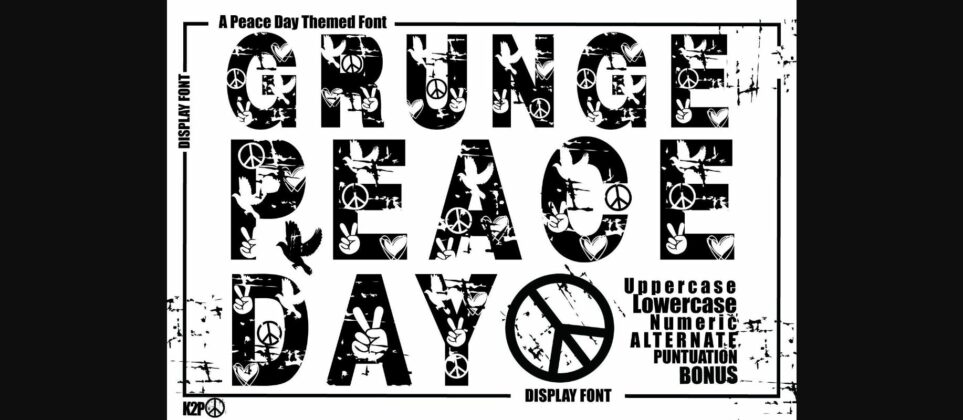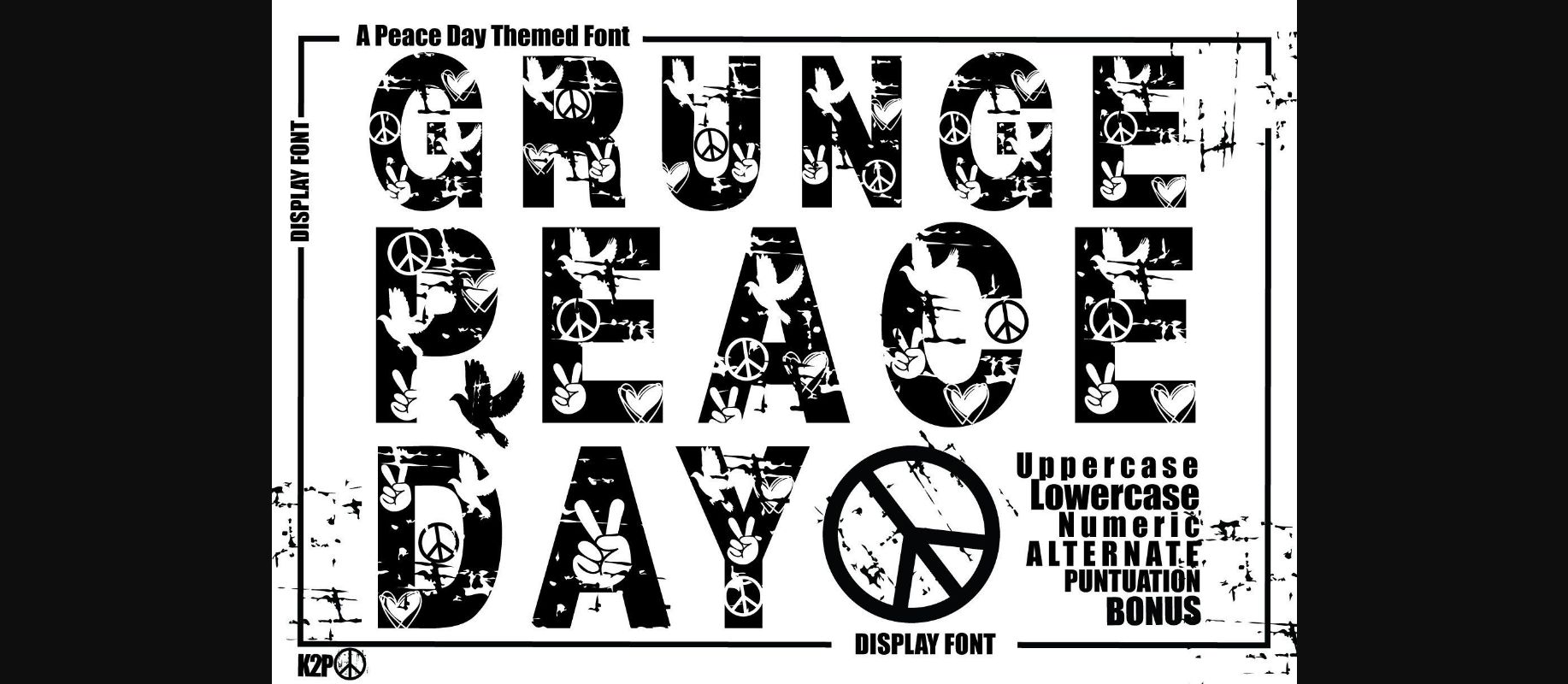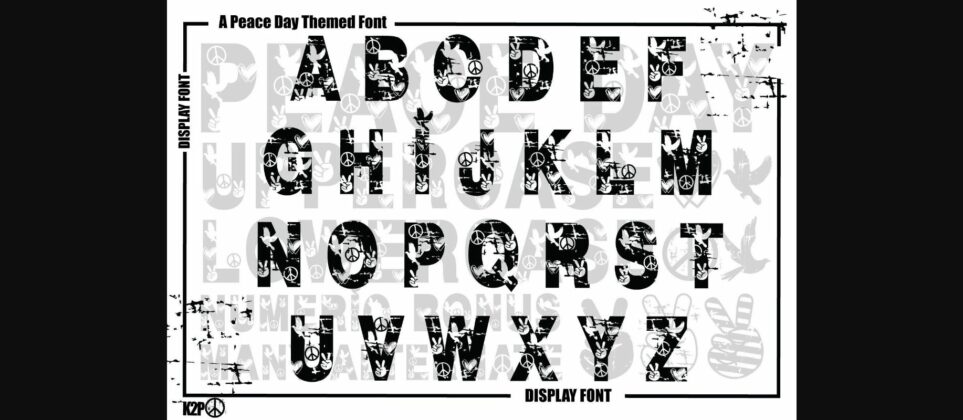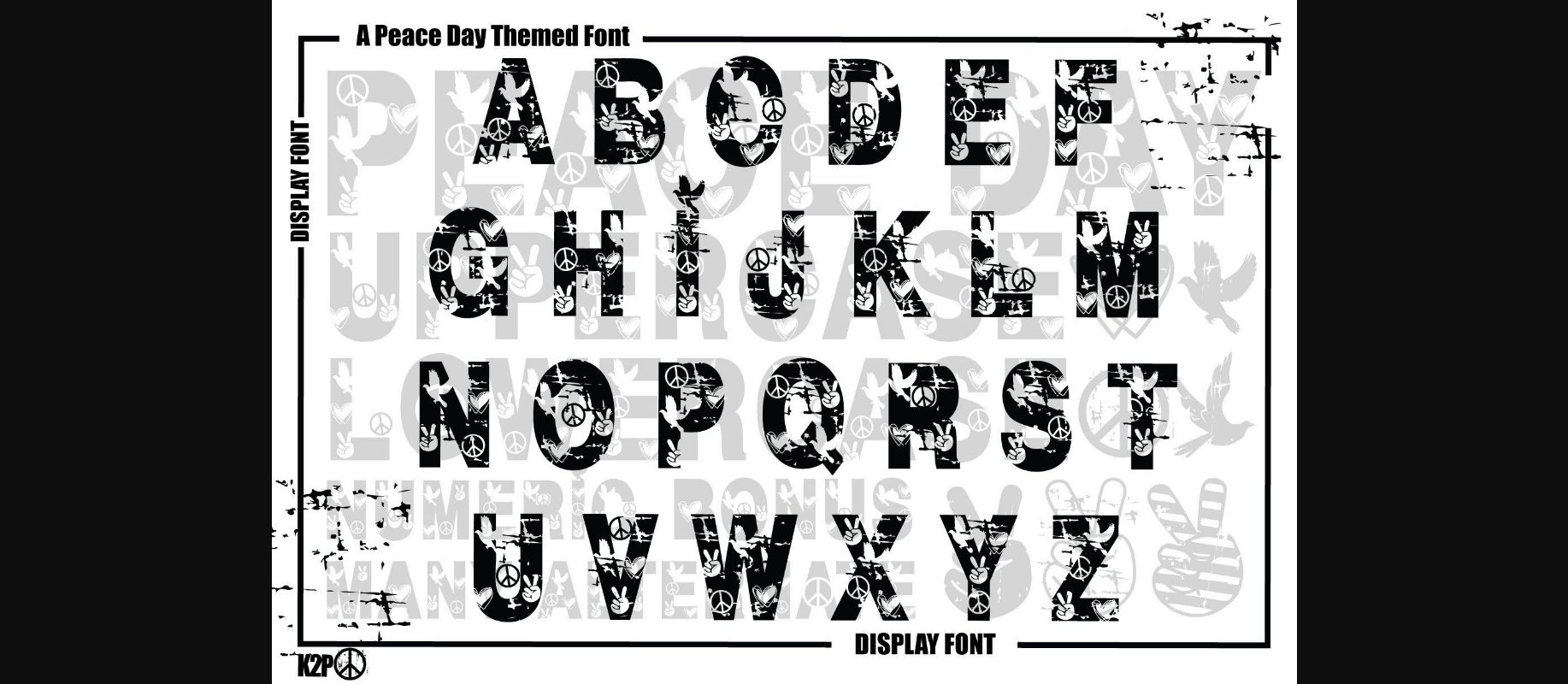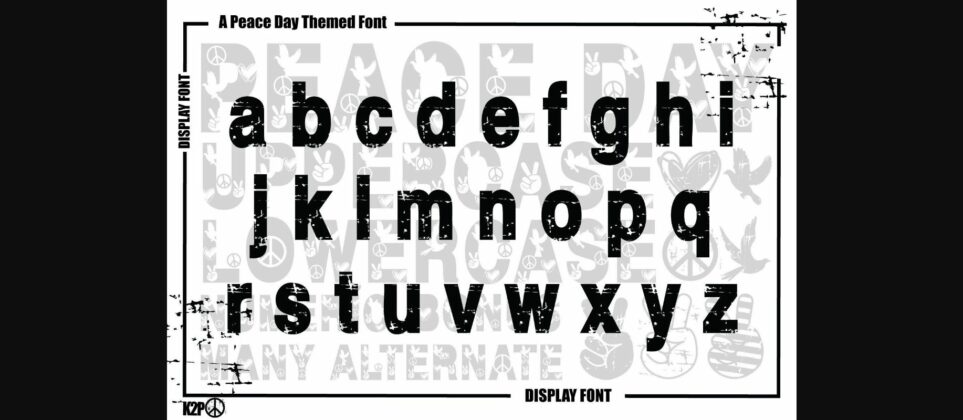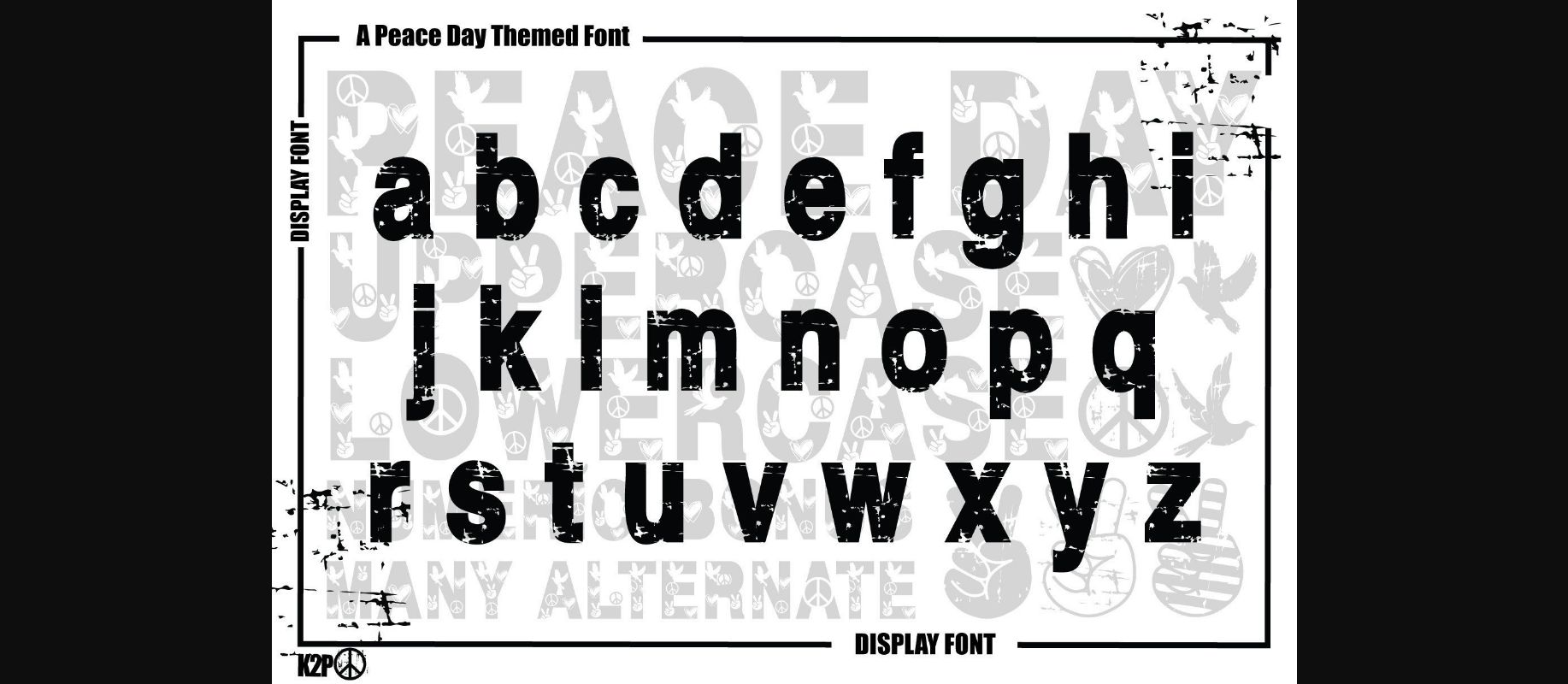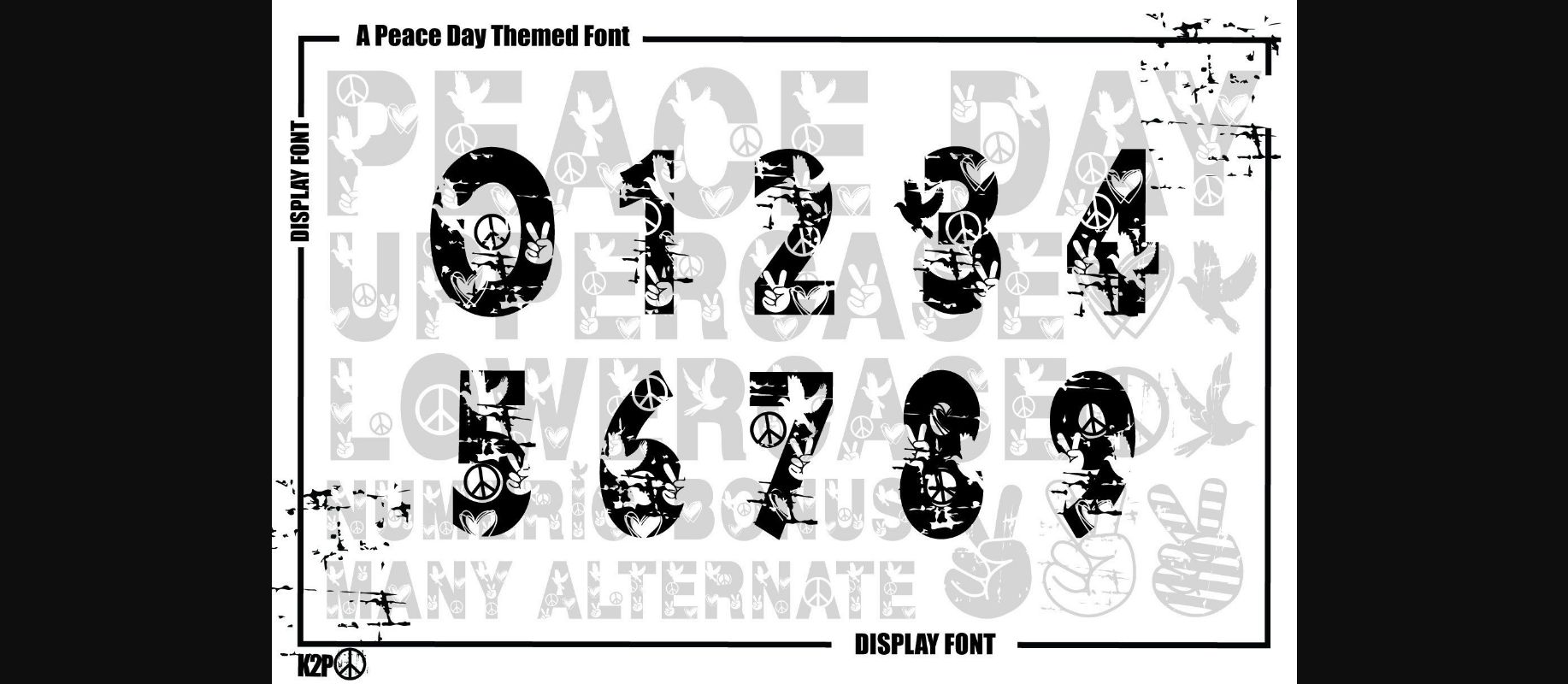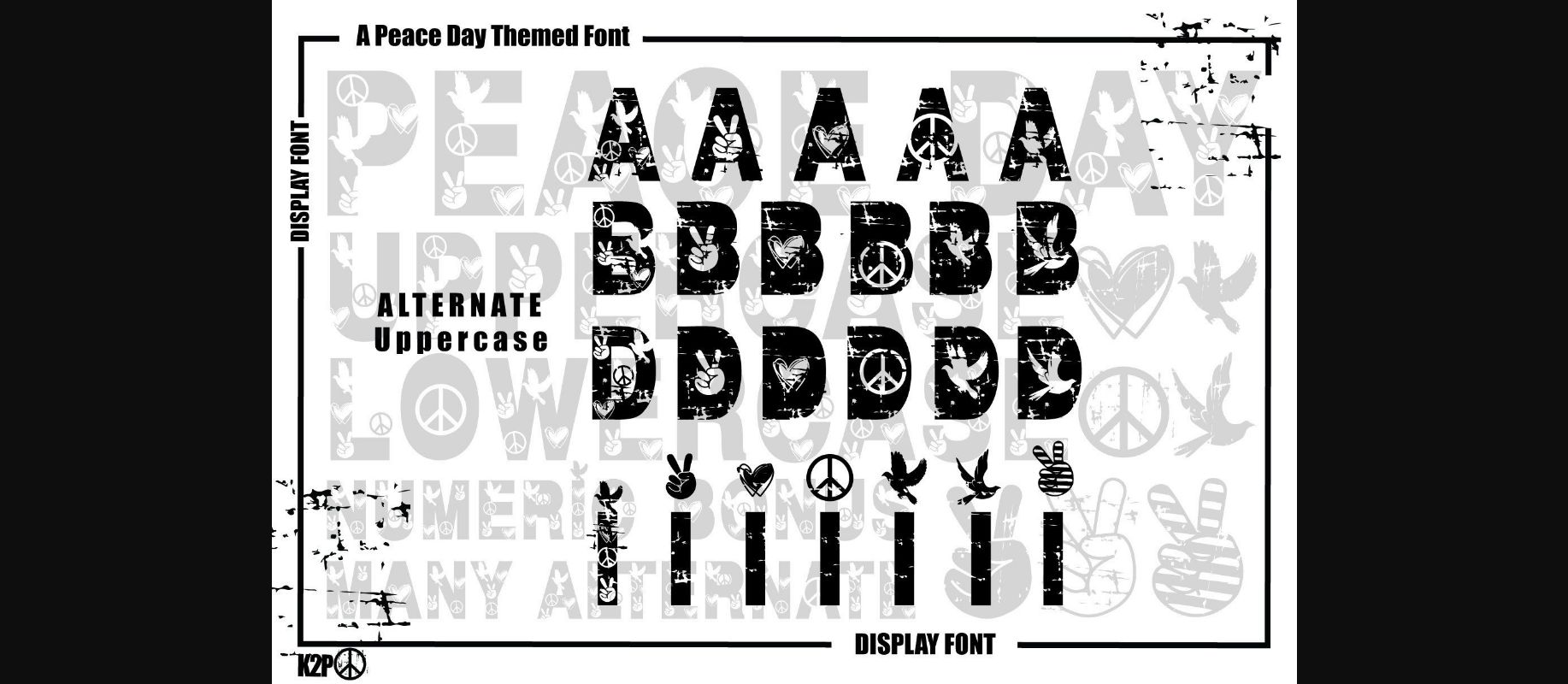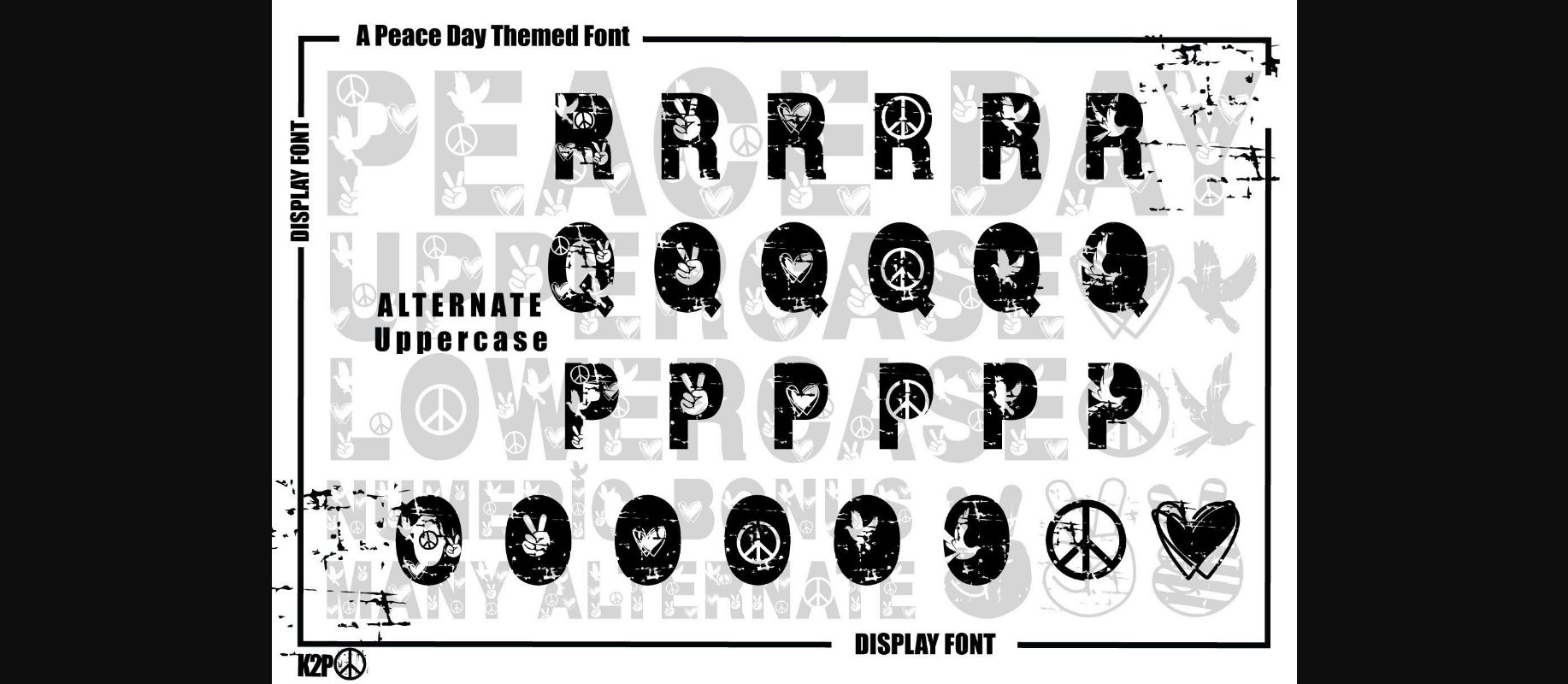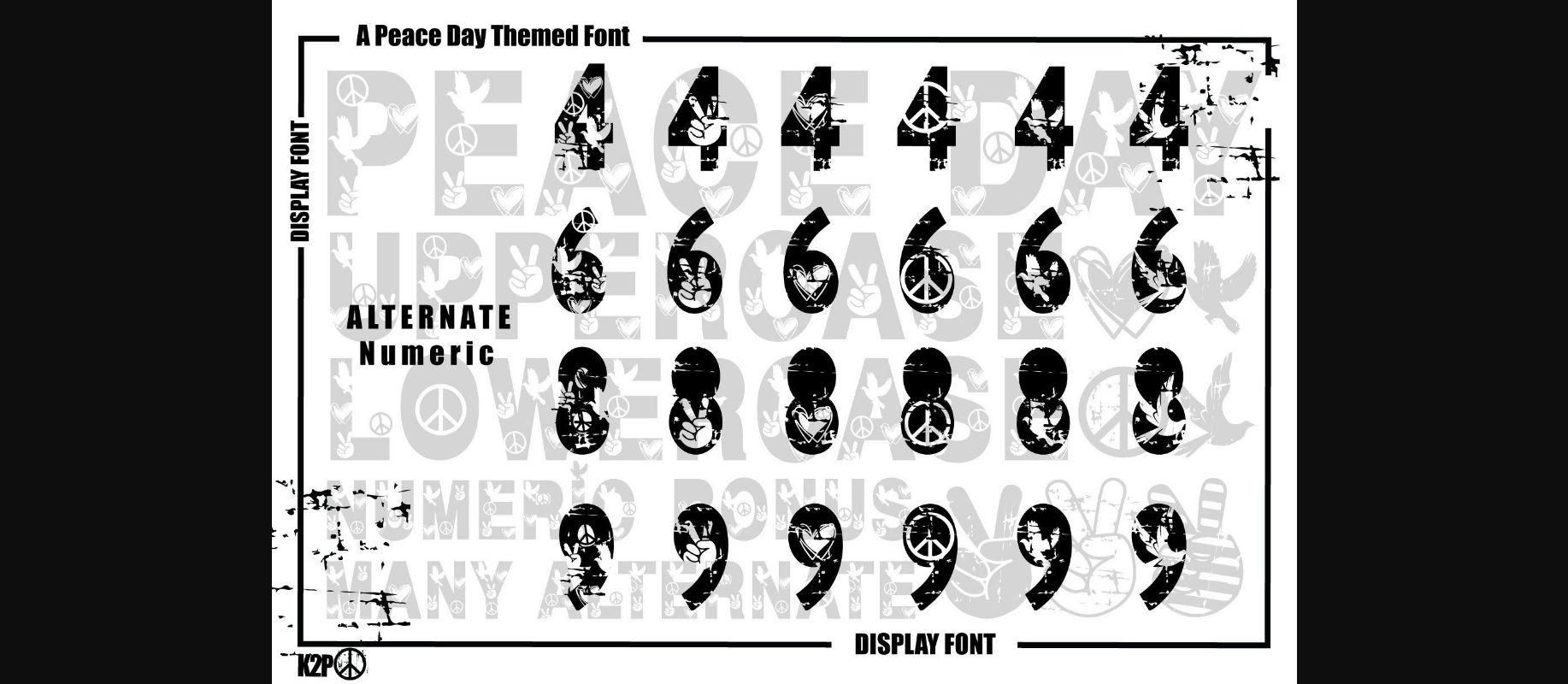
About Grunge Peace Day Font
Grunge Peace Day is a thick-lettered decorative font perfect for various quotes or teaching material! Its authentic look will add a personal and realistic feel to your designs. This font is PUA encoded, which means you can access all of the glyphs and swashes with ease!